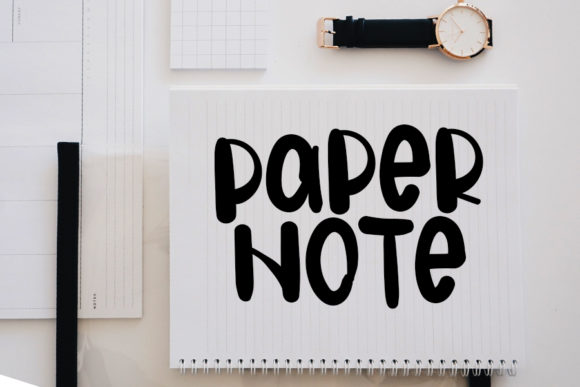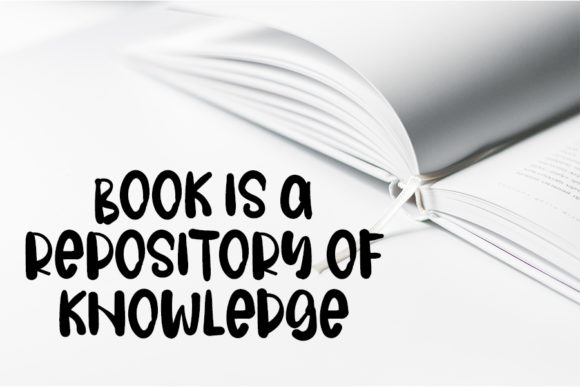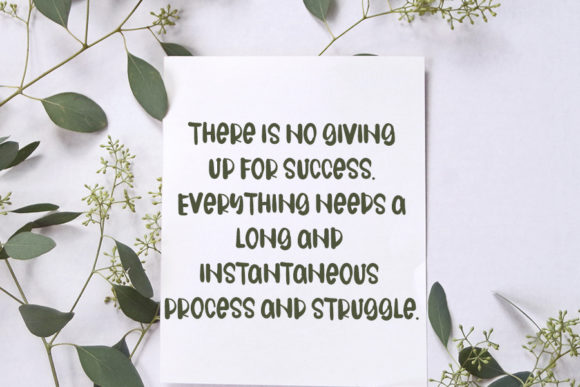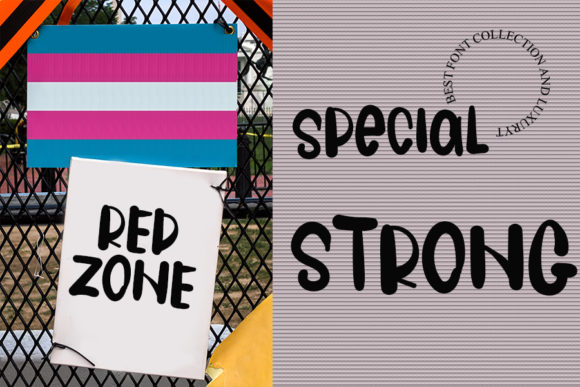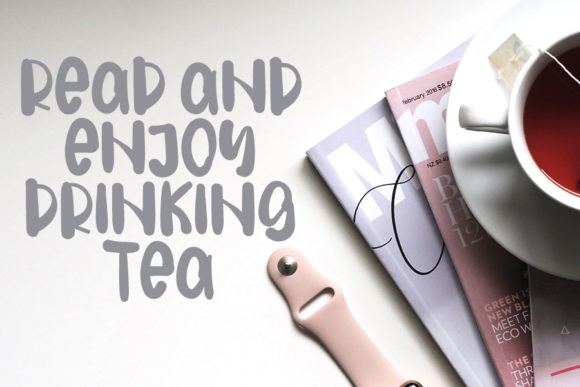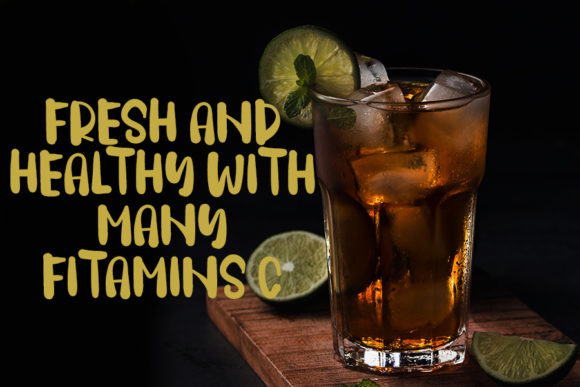
Discover the Sweet Taste of Creativity with Fresh Papaya Font
You know that moment when you’re brainstorming ideas for a new project, and everything just clicks? The words start flowing, and your creativity is in full bloom? That’s exactly the kind of magic that happens when you have the right tools at your disposal – and that’s where Fresh Papaya Font comes in.
This sweet and trendy brushed display font is more than just a pretty face; it’s a game-changer for designers looking to add a touch of sophistication and whimsy to their creations. With its soft, handwritten feel and effortless charm, the Fresh Papaya Font has the power to elevate any project, from social media graphics to branding materials and beyond.
Fresh Papaya Font Key Features
- Font Family: Fresh Papaya
- Font Size: 1,046 glyphs
- Unique Characteristics: This font features a modern and playful design, perfect for titles, headings, and display text. It has a unique blend of rounded and sharp edges, creating a visually appealing contrast.
Designer Review: Fresh Papaya Font
Overall, I’m impressed with the Fresh Papaya Font’s unique style and versatility. ✨ The font’s curved lines and organic feel give it a modern, tropical vibe that’s perfect for branding and design projects that require a touch of whimsy. ✨
The font’s versatility is another standout feature. It comes in a range of weights and styles, making it easy to use in different contexts. From headlines to body text, Fresh Papaya Font can handle it all. ✨
- ⚠️ The font may not be suitable for projects that require a more formal or traditional feel.
- ⚠️ Some users may find the font’s irregularities distracting or difficult to read.
- ⚠️ The font’s wide range of weights and styles can be overwhelming to navigate.
Overall, I think the Fresh Papaya Font is a great addition to any designer’s toolkit. While it may not be the best choice for every project, it’s definitely worth considering for designs that require a unique and playful touch. With a little practice and patience, I think designers can get the most out of this versatile font.
For best results, use Fresh Papaya Font in designs that require a fun and playful touch, such as:
- Cookbooks and recipe cards
- Children’s book covers and illustrations